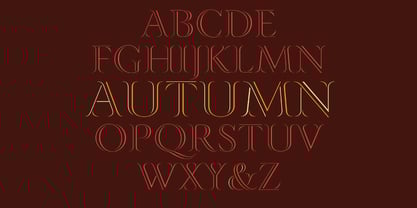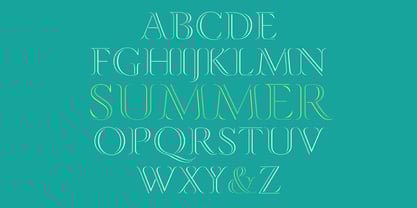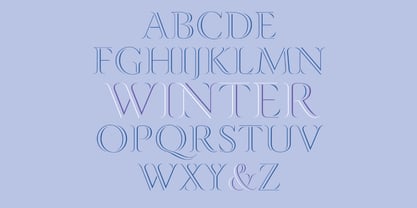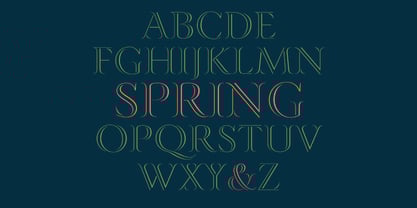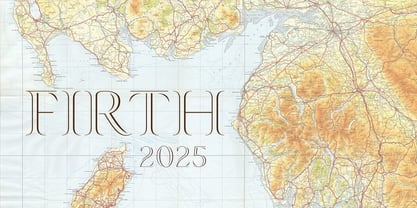
Designed by Steve Matteson in 2025, Firth is a decorative typeface consisting of lightly outlined roman capitals. The narrow, flowing outlines reflect the shapes of coastal inlets found in Scotland and Ireland. Firth is effective at large sizes to illustrate elegance and movement. Book covers, initial letters and high fashion branding are ideal uses for this typeface family.